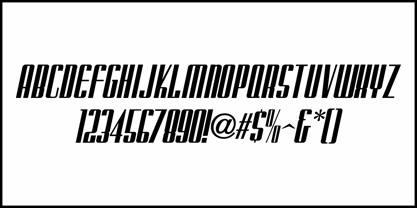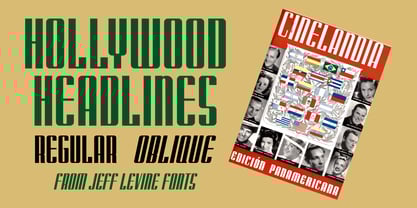
Hollywood Headlines JNL
by Jeff Levine
The May, 1941 issue of Cinelandia (a Spanish language film fan magazine) had it's title block hand lettered in a bold, condensed Art Deco design.
This highly stylized type face is now available as Hollywood Headlines JNL, in both regular and oblique versions.